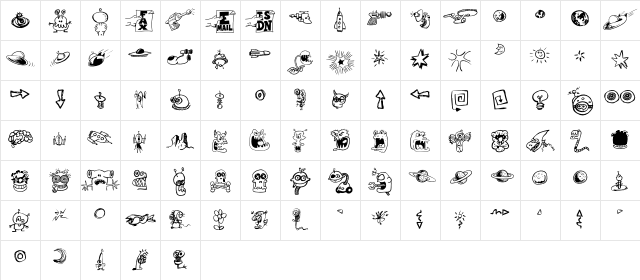
LunarTwits Regular Free Font
LunarTwits Regular
Design Context for LunarTwits
LunarTwits is a composed and adaptable typeface that performs quietly and consistently across a wide range of design contexts.